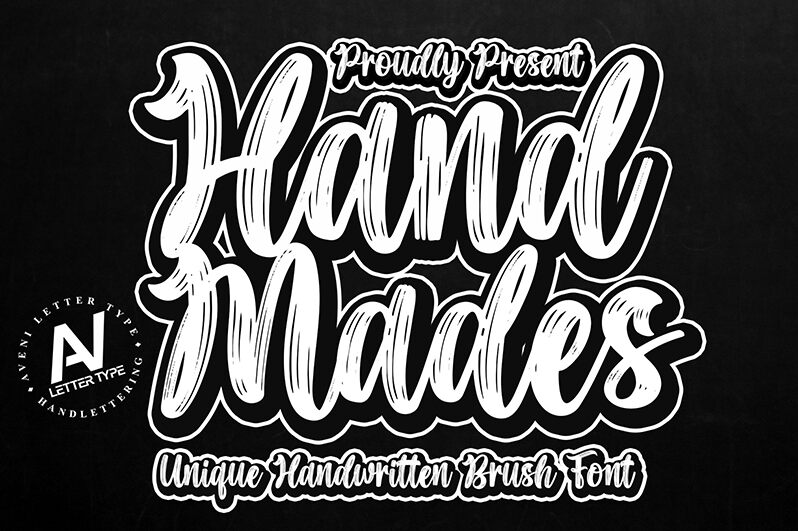
Handmades by Aveni Letter Type captivates with its bold, dynamic brushstrokes. This captivating font exudes a sense of artistry and movement, effortlessly blending modernism with a touch of vintage charm. The robust, expressive letterforms convey a strong, confident personality, making Handmades a standout choice for projects seeking a distinctive, handcrafted aesthetic.
Handmades' versatility shines through, lending itself seamlessly to a wide range of design applications. From eye-catching headlines and impactful logos to emotive branding and editorial layouts, this font's unique character and energy can elevate any visual narrative. Designers seeking to infuse their work with a touch of authentic, handmade flair will find Handmades to be a captivating and versatile addition to their creative toolkit.
Handmades